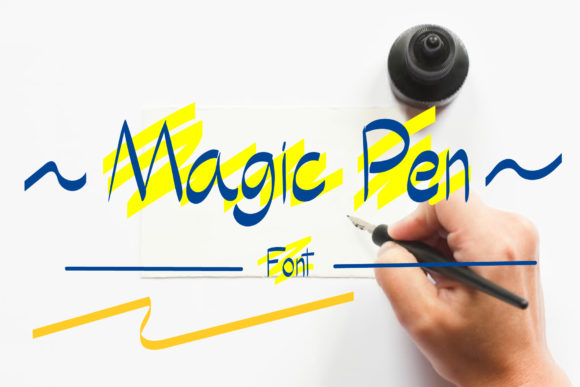
Magic Pen Font
Introducing Magic Pen Font, the enchanting script font that captivates with its charming personality and undeniable cuteness! Dive into a world of handwritten beauty, where every letter dances with a casual elegance that draws you in. Designed with meticulous care by the talented Wanida Toffy, Magic Pen Font possesses an aura of approachability that makes it a joy to behold.
Step into a realm where words come alive, adorned with the captivating charm of Magic Pen Font. This remarkable font family exudes a delightful friendliness that reaches out and embraces your readers, inviting them on a journey through your written creations. Its casual flair adds a touch of down-to-earth authenticity, making your messages resonate with a captivating genuineness.
Beyond its undeniable charm, Magic Pen Font boasts exceptional readability. With its carefully crafted characters, every letter and word leaps off the page with clarity and precision. Your readers will find themselves effortlessly immersed in your content, their attention drawn to the seamless flow of ideas and emotions expressed through your words.
The versatility of Magic Pen Font knows no bounds. Whether you're crafting a heartfelt letter, a captivating novel, or an informative blog post, this font family effortlessly adapts to your creative vision. Its diverse range of applications makes it the perfect companion for a myriad of projects, allowing you to express yourself with boundless creativity.
Welcome to the realm of Magic Pen Font, where handwritten elegance and casual charm unite to create an enchanting symphony of visual delight. Experience the magic of words as they are transformed into works of art, captivating your readers and leaving them spellbound by the sheer beauty of your creations.